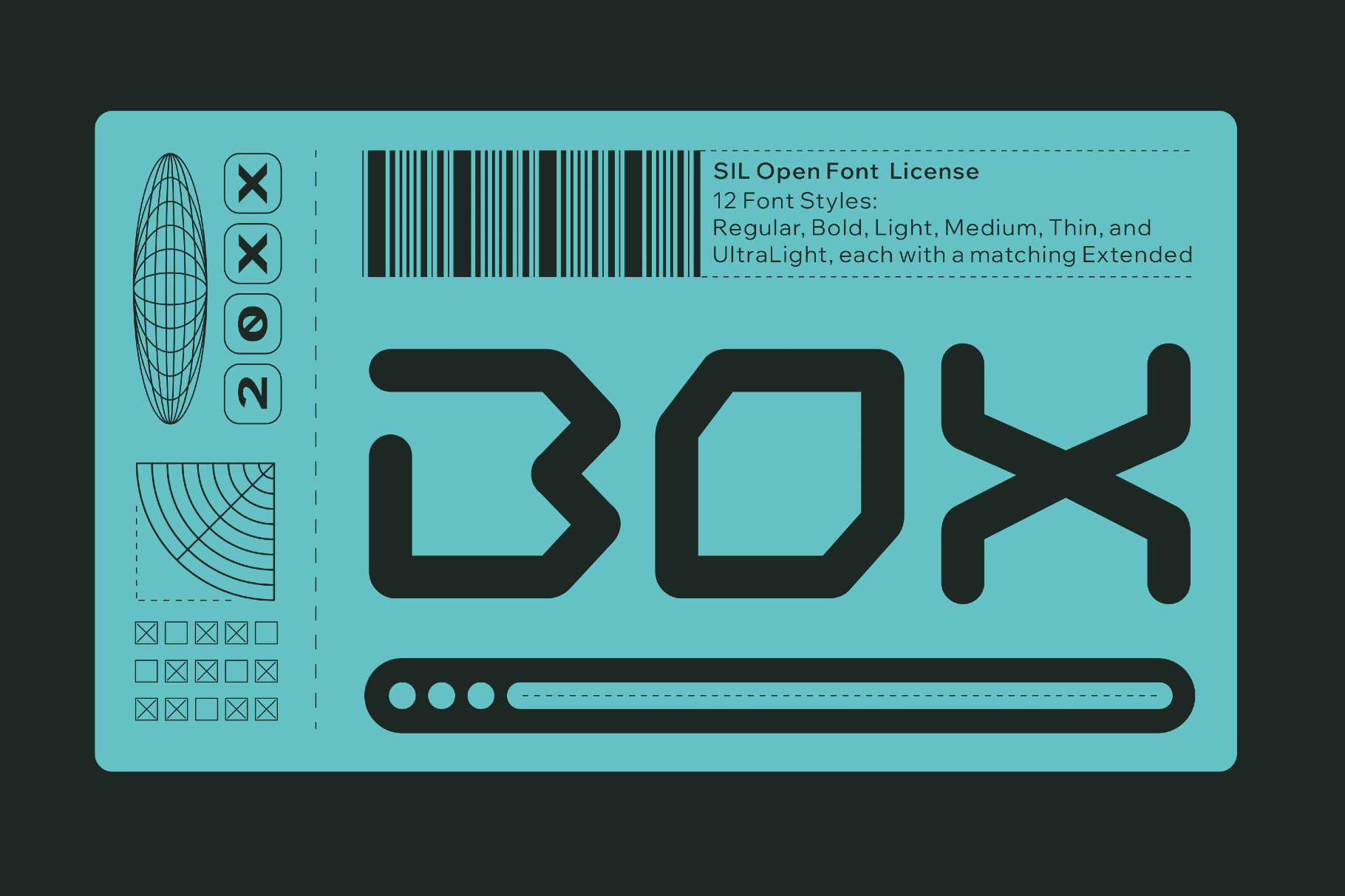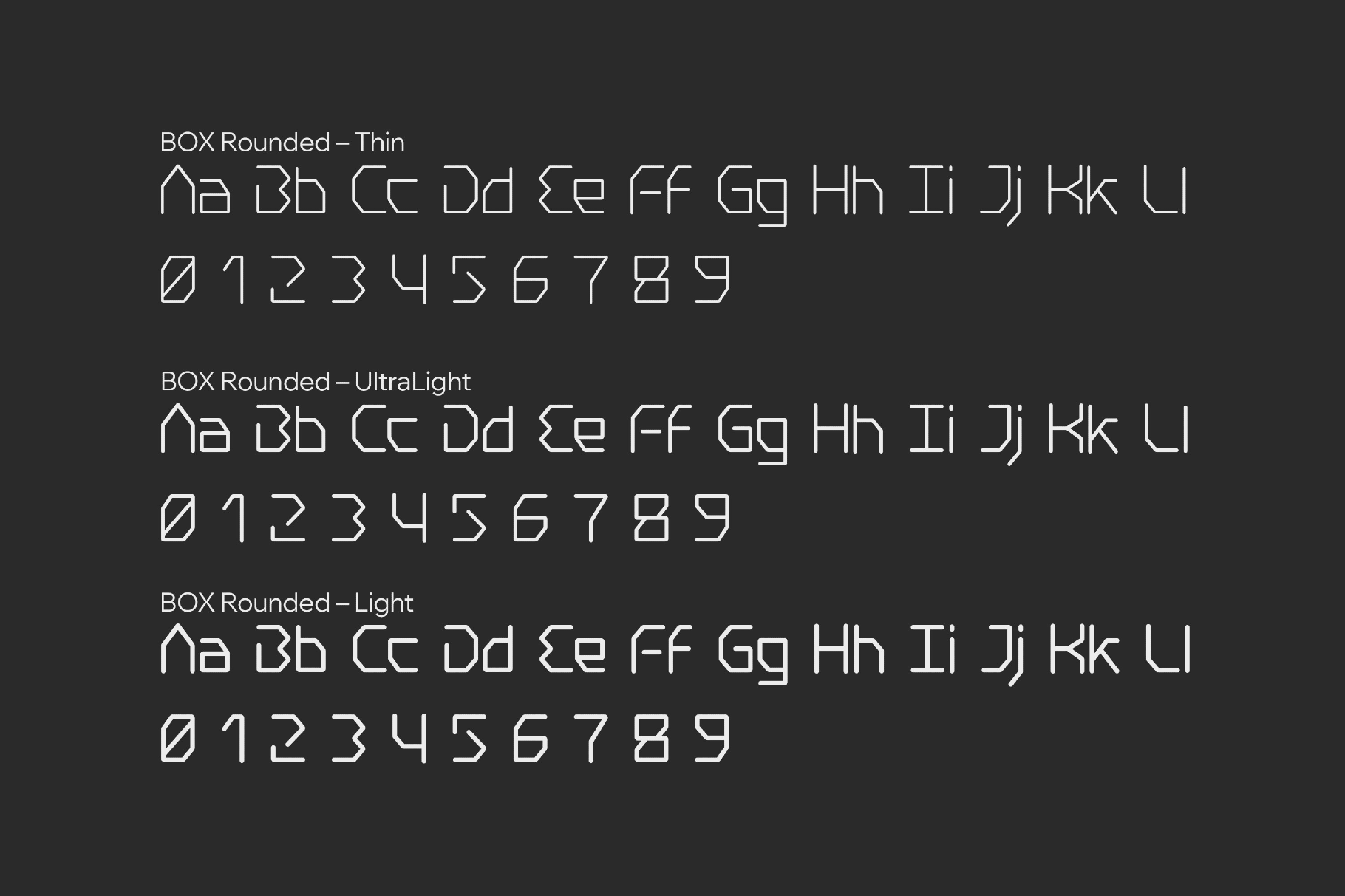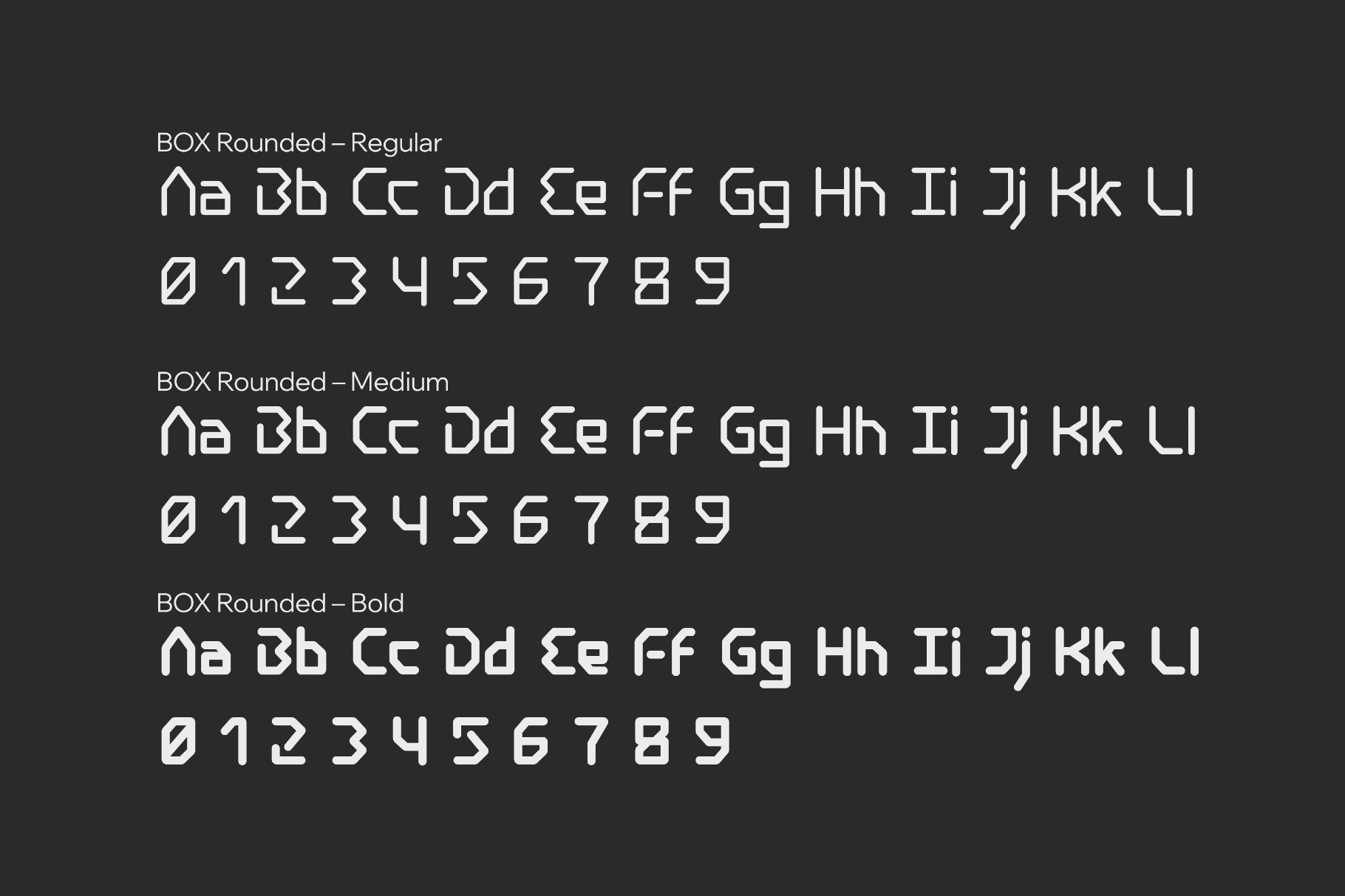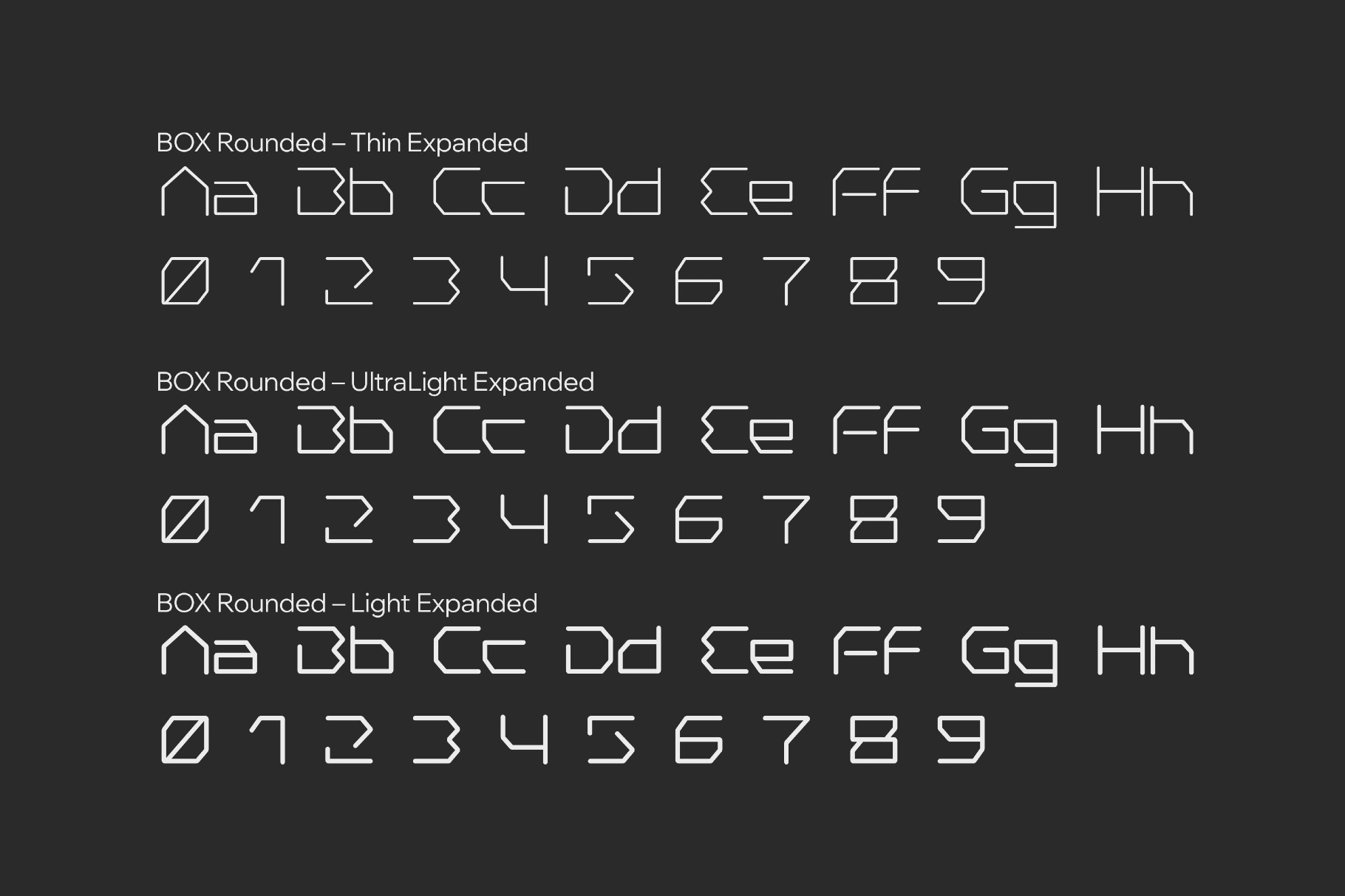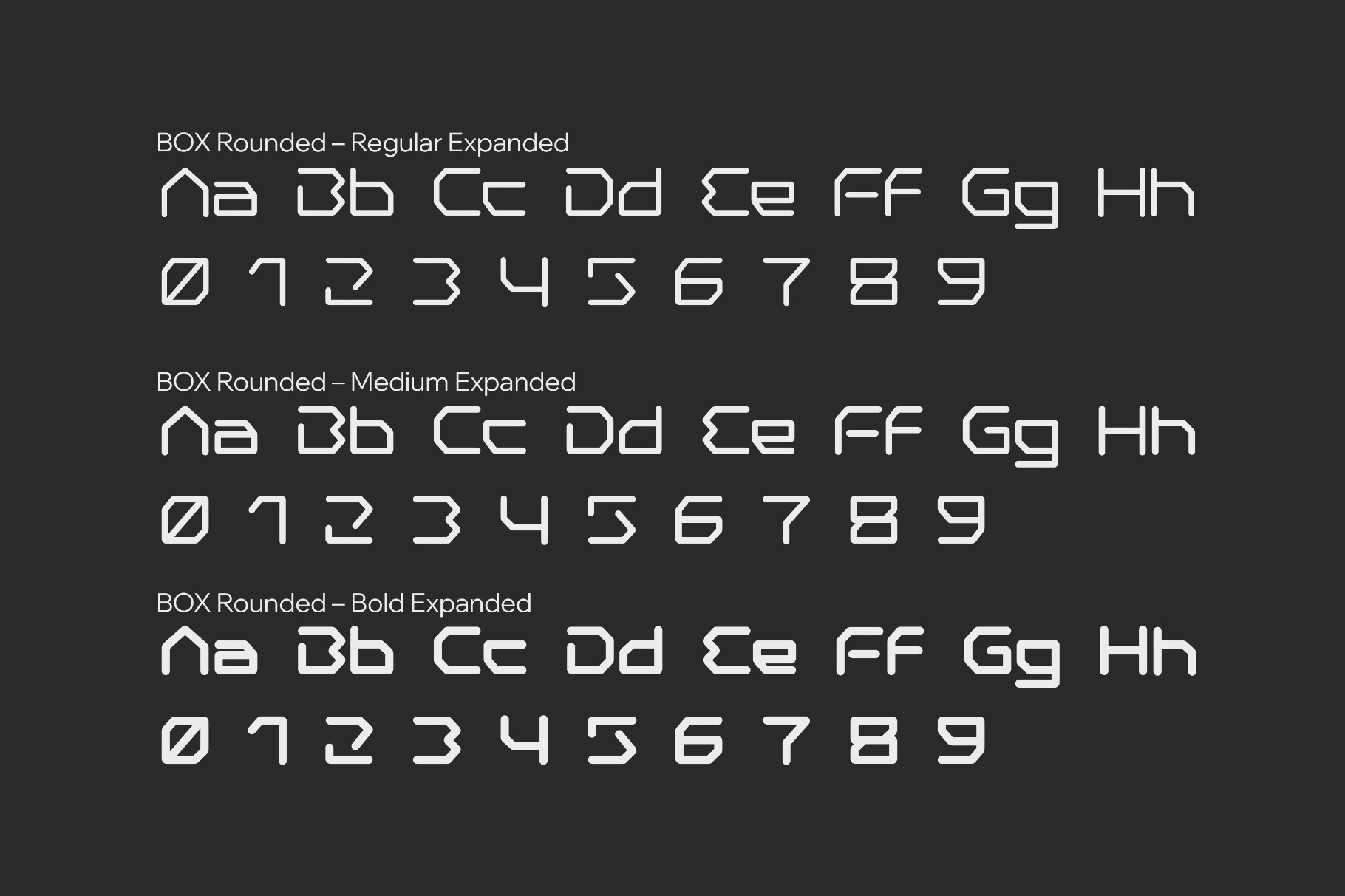
Box Space Font Family
Box is a neat, balanced space font built on clean circular forms, measured rhythm, and a steady geometric rhythm. That keeps everything in order, but don't make a show of it. It carries a polished space-age mood with a touch of Bauhaus discipline. The font settles easily into brand systems, editorial layouts, web interfaces, poster titles, packaging, exhibition graphics, tech-focused identities, app interfaces, and presentation systems.
• 12 styles;
• uppercase and lowercase letters;
• numbers and punctuation;
• multilingual support across a basic Latin script.